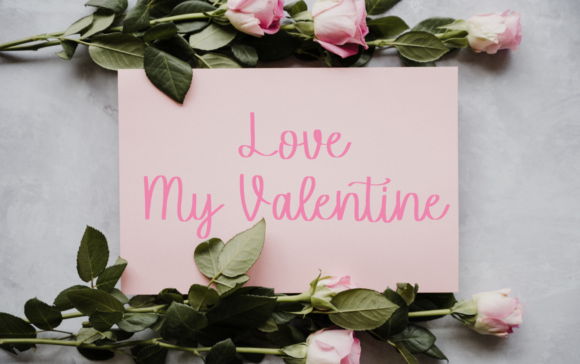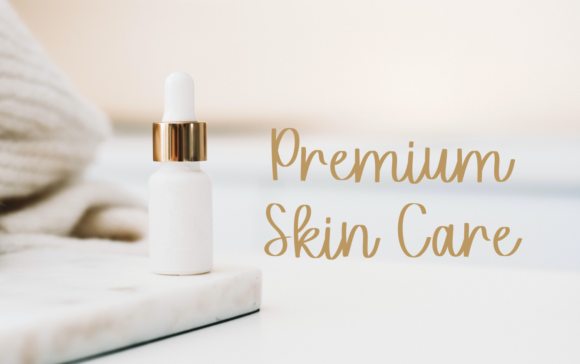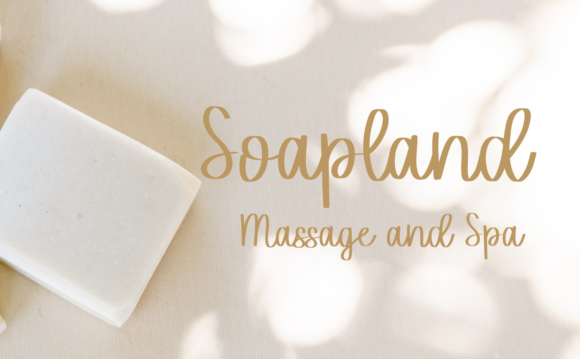
Introducing Agatha Font: Elevate Your Designs with Elegance and Sophistication
Are you a designer or crafter looking for a font that exudes elegance and sophistication? Look no further than Agatha Font, a stunning script font that brings a contemporary atmosphere and impeccable form to your projects. With its balanced and varied design, Agatha Font is the perfect choice for those seeking to add a touch of refinement to their work.
The Story Behind Agatha Font
Agatha Font was designed with the intention of creating a script font that is not too thin and not too thick, but rather, one that strikes the perfect balance between the two. The result is a font that is both elegant and legible, making it ideal for a wide range of applications, from wedding invitations and branding materials to packaging and advertising.
Key Features of Agatha Font
- Contemporary Atmosphere: Agatha Font boasts a modern and fresh feel, making it perfect for designers and crafters who want to create work that is current and on-trend.
- Impeccable Form: The font’s design is characterized by its impeccable form, ensuring that it looks great in any context, whether used for headings, body text, or titles.
- Balanced and Varied: Agatha Font features a range of weights and styles, allowing you to add depth and visual interest to your designs.
- Legibility: The font’s clear and legible design makes it easy to read, even at small sizes.
What Makes Agatha Font Stand Out?
Agatha Font stands out from other script fonts on the market due to its unique combination of elegance and versatility. Its balanced design ensures that it looks great in a variety of contexts, from formal events to everyday applications. Whether you’re creating wedding invitations, branding materials, or social media graphics, Agatha Font is the perfect choice.
How to Use Agatha Font in Your Designs
Agatha Font is incredibly versatile and can be used in a wide range of design applications. Here are a few ideas to get you started:
- Wedding Invitations: Use Agatha Font to create beautiful and elegant wedding invitations that set the tone for the big day.
- Branding Materials: Add a touch of sophistication to your branding materials, such as business cards, letterheads, and packaging.
- Social Media Graphics: Use Agatha Font to create eye-catching social media graphics that stand out from the crowd.
- Advertising: Add a touch of elegance to your advertising materials, such as flyers, brochures, and posters.
Tips for Getting the Most Out of Agatha Font
To get the most out of Agatha Font, here are a few tips to keep in mind:
- Experiment with Different Weights: Agatha Font comes in a range of weights, so don’t be afraid to experiment to find the one that works best for your design.
- Pair with Other Fonts: Agatha Font pairs well with a range of other fonts, so try combining it with different fonts to create a unique look.
- Use for Headings and Titles: Agatha Font is perfect for headings and titles, so use it to add a touch of elegance to your designs.
Agatha Font is a stunning script font that brings a touch of elegance and sophistication to any design. With its balanced and varied design, impeccable form, and contemporary atmosphere, it’s the perfect choice for designers and crafters looking to create work that stands out from the crowd. Whether you’re creating wedding invitations, branding materials, or social media graphics, Agatha Font is sure to impress.